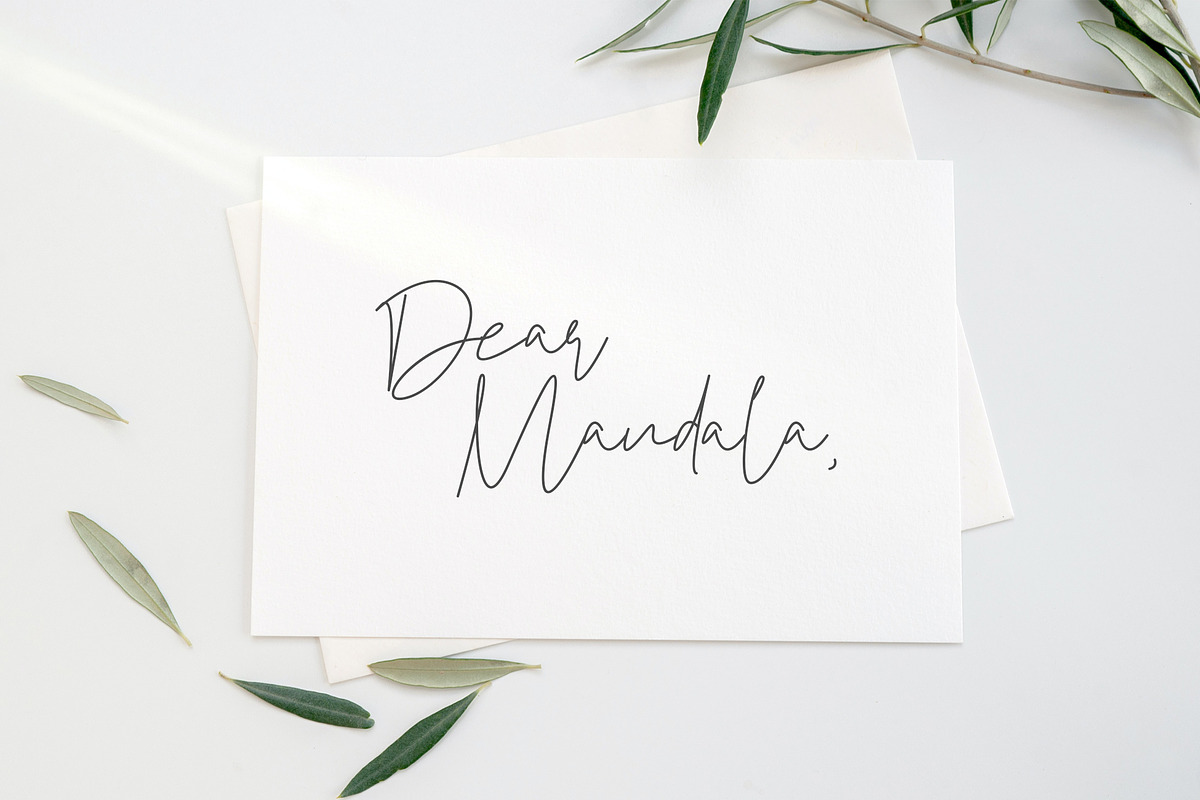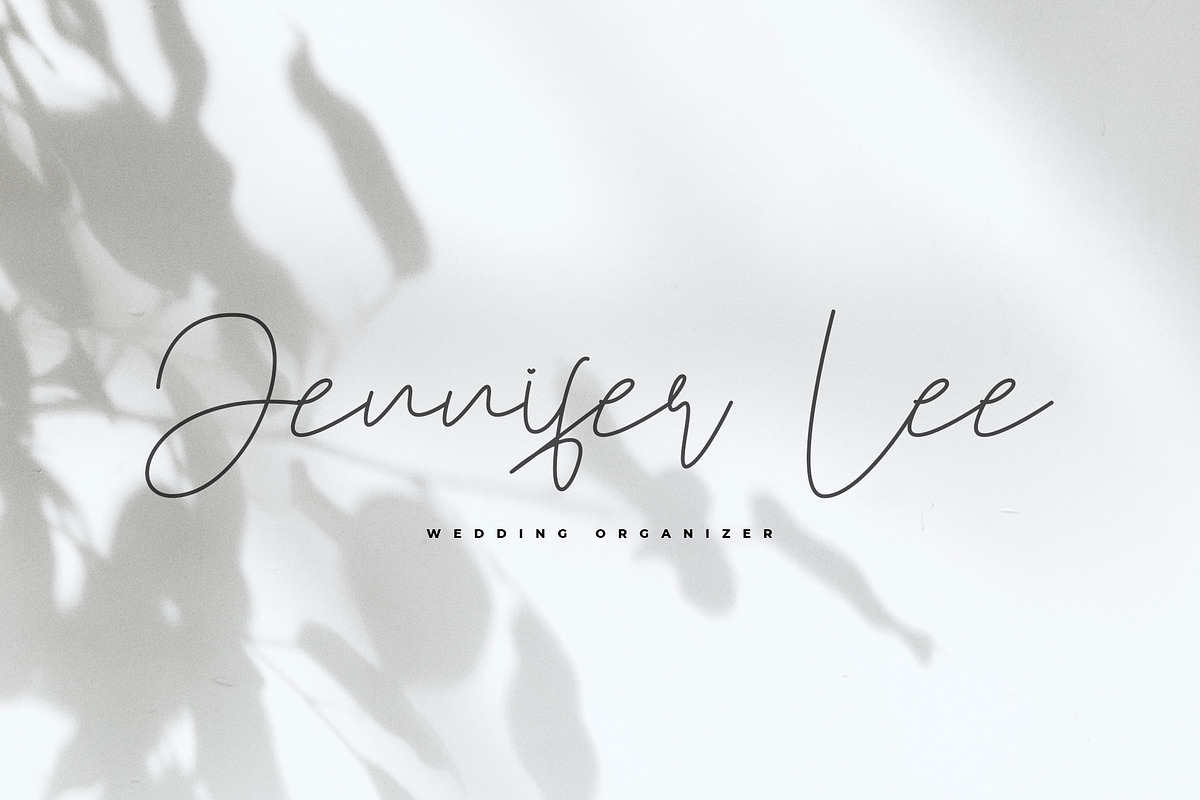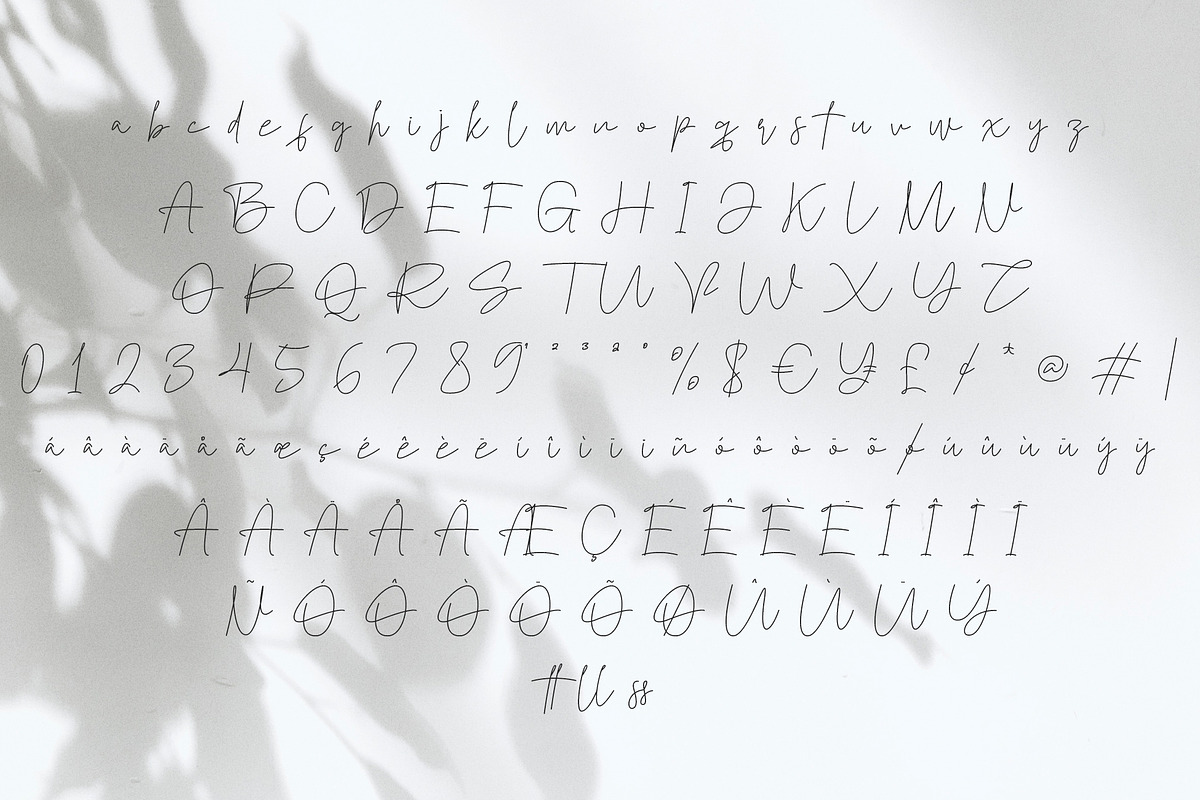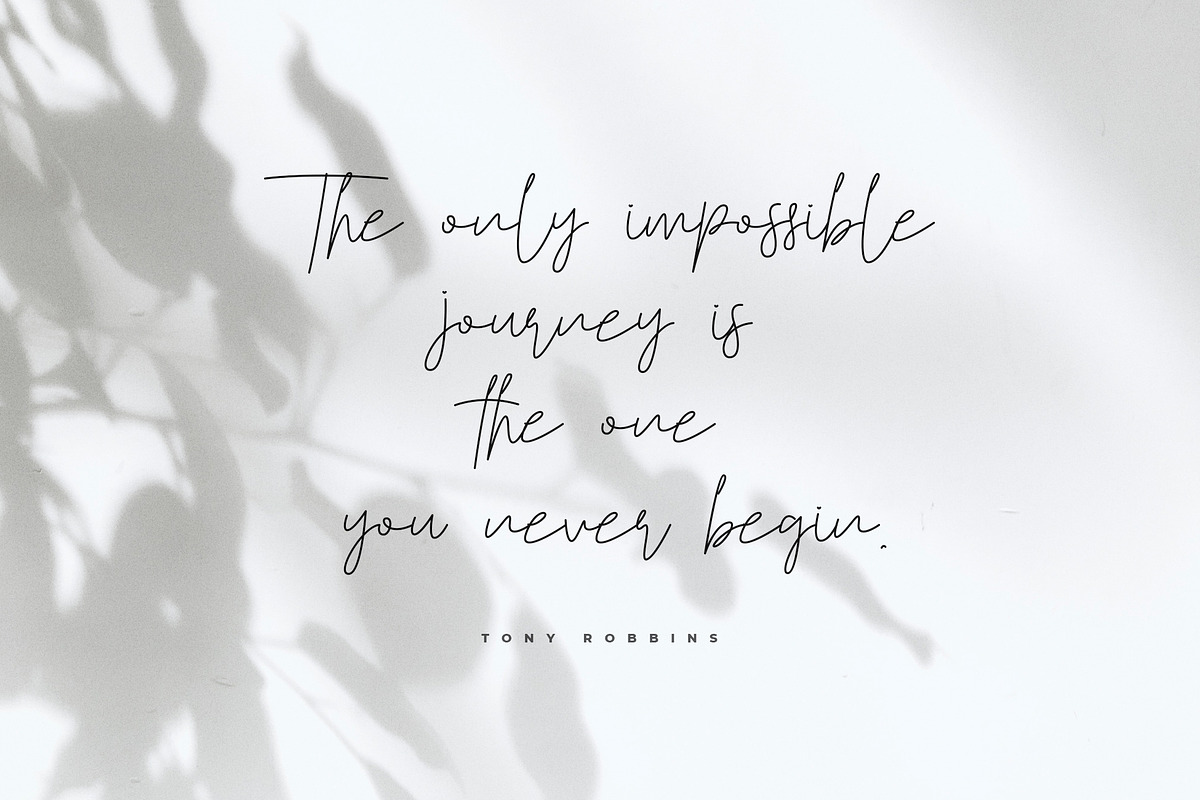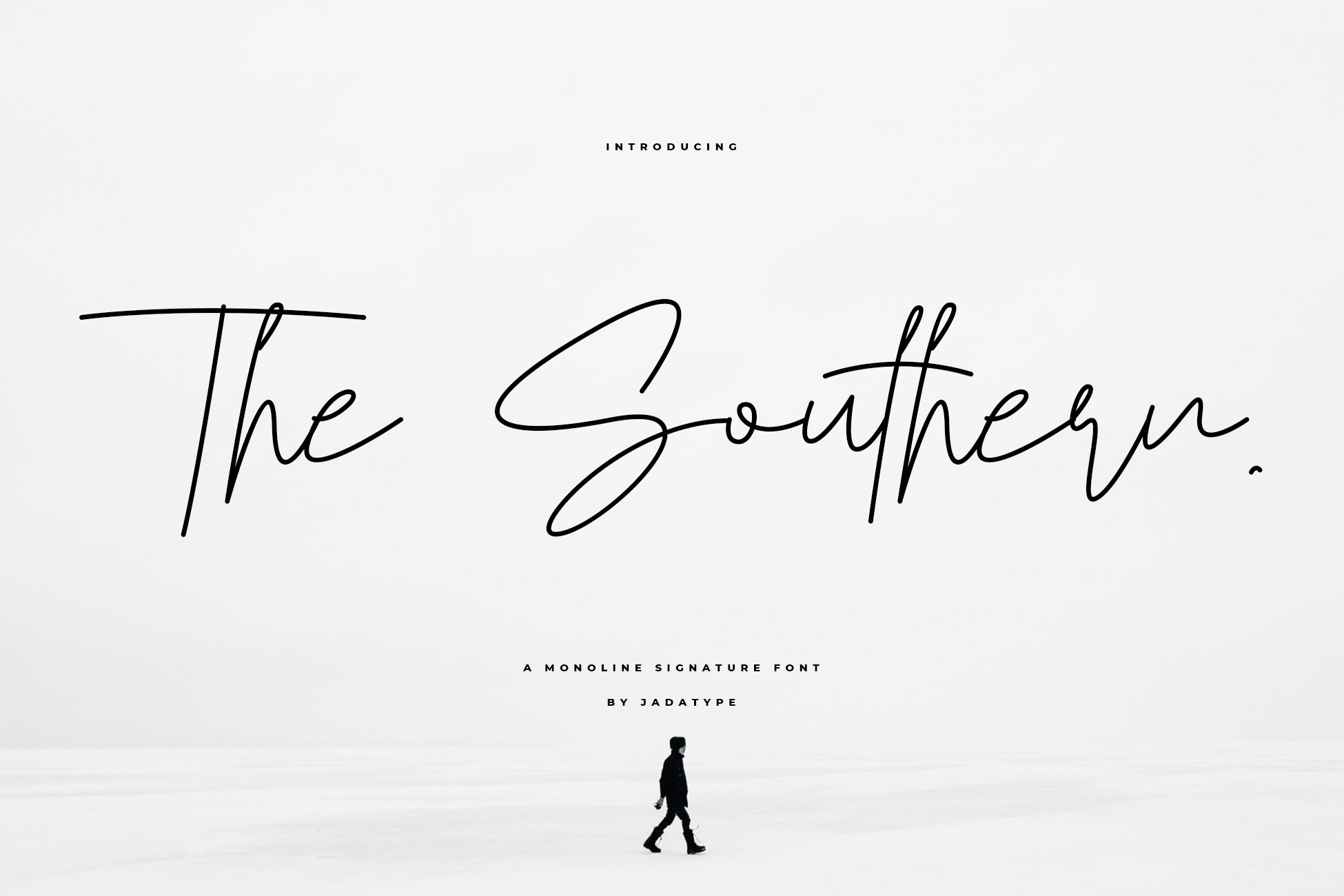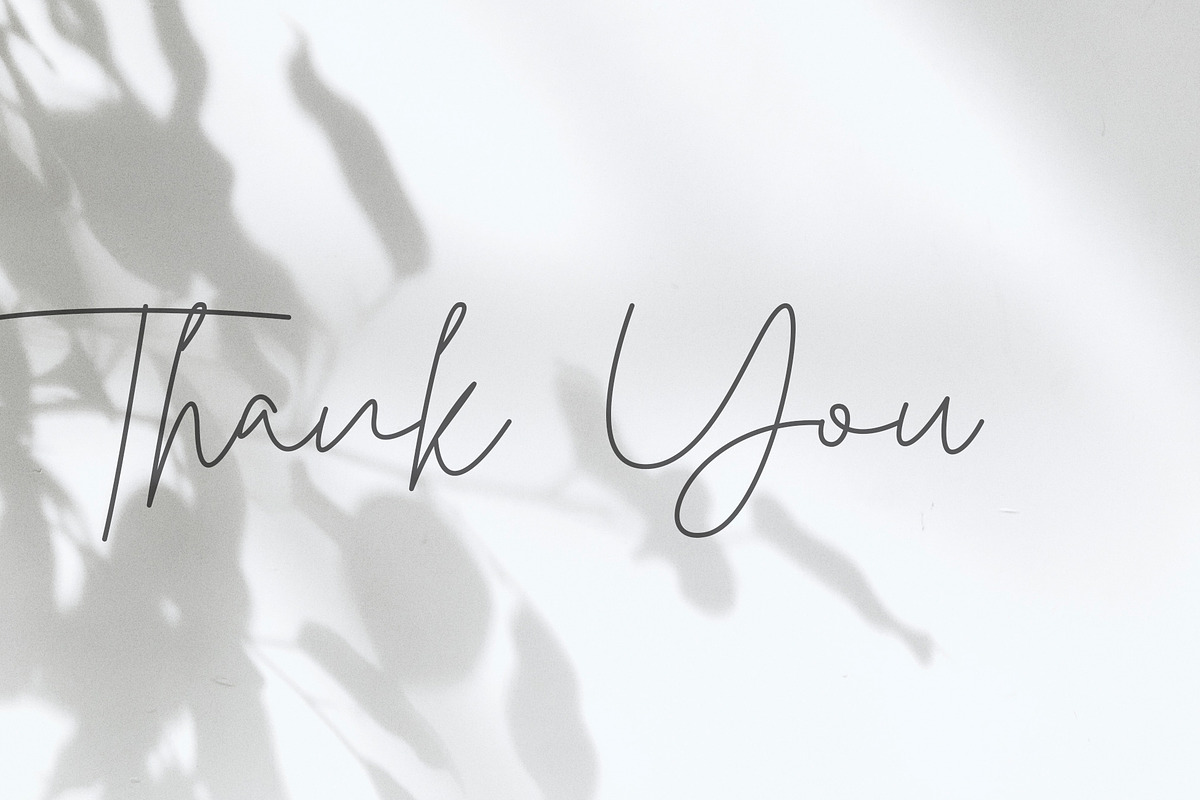
The Southern Font | Monoline Script
The Southern is a sleek script monoline font with elegant, flowing curves and full multilingual support. Ideal for logos, invitations, and more, it's fully compatible with Adobe and Affinity applications, offering seamless installation and integration into your creative projects.